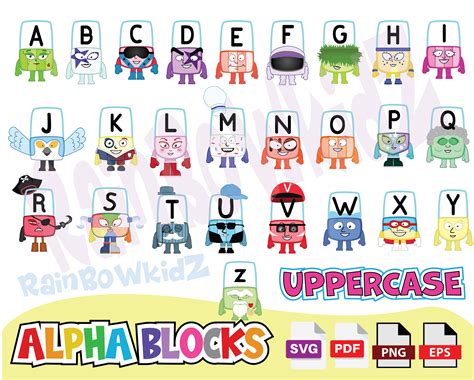
Readers, have you ever wanted to bring the fun and educational world of Alphablocks into your own creations? Do you want to create vibrant and engaging learning materials for children, incorporating the iconic Alphablocks characters? Well, look no further! In this comprehensive guide, we'll delve into the exciting world of downloading Alphablocks font, exploring its free availability and the numerous educational benefits it offers.
What is Alphablocks Font?
Alphablocks font is a delightful and engaging font based on the popular children's television show "Alphablocks." This show teaches children about the sounds of the English alphabet through colorful and animated characters, each representing a different letter. The font faithfully replicates the unique design of the Alphablocks characters, making it a perfect choice for creating visually appealing and educational materials.
The font is designed to be easy to read for young learners, with clear and distinct letterforms that are visually appealing and promote letter recognition. It's a fun and playful way to incorporate the Alphablocks characters into your projects, adding a touch of magic and delight to your creations.
The Educational Benefits of Alphablocks Font
Beyond its visual appeal, Alphablocks font offers a wealth of educational benefits for children, particularly those learning to read and write. Here are some key ways it can support learning:
Enhanced Letter Recognition
The vibrant and distinctive design of the Alphablocks characters helps children easily recognize and remember letter shapes. The unique visual representation of each letter provides a memorable and engaging learning experience. By incorporating the Alphablocks font into worksheets, flashcards, and other learning materials, children can quickly grasp the shapes of letters and connect them to their sounds.
Phonics Awareness
Alphablocks font is closely tied to the phonics approach to reading, which emphasizes the relationship between sounds and letters. The font reinforces this connection by visually representing each letter with a distinct character that embodies its sound. This visual aid helps children make connections between letters and their corresponding sounds, strengthening their phonemic awareness and reading skills.
Engaging Learning Experiences
The playful and colorful nature of Alphablocks font makes learning fun and engaging. Children are more likely to be interested in learning materials that feature familiar and appealing characters like the Alphablocks. This enthusiasm can lead to increased motivation, participation, and ultimately, better learning outcomes.
Downloading Alphablocks font is a fantastic way to bring the fun and educational magic of Alphablocks into your projects. This free font offers numerous benefits, including enhanced letter recognition, phonics awareness, and engaging learning experiences for children. From creating worksheets and flashcards to designing posters and website elements, Alphablocks font can be a powerful tool for educators, parents, and anyone passionate about early childhood learning. So, go ahead and download Alphablocks font today! Explore the world of creativity and learning, and open up a world of possibilities for young minds. And while you're at it, check out our other articles on learning resources and creative tools for kids!